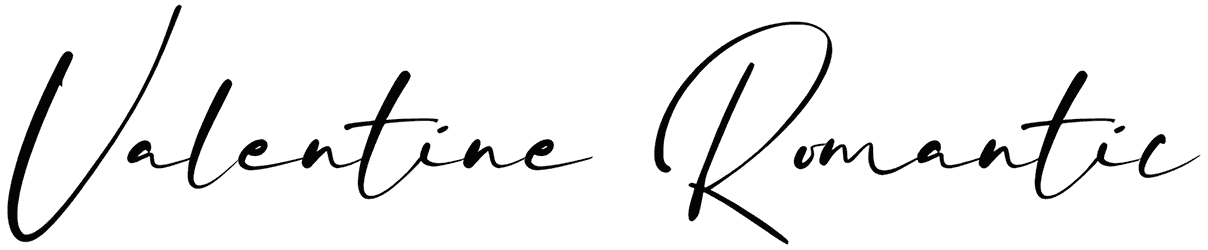
MADE Florence Script Font
One of the choices for writing fashion headlines, inspirational quotes, and invitation cards is using a calligraphy font. MADE Florence Script has elegant and feminine characters and all of its elements are designed with thin elements. It can convey a classy, aesthetic, and royal vibe to the reader and bring a handwritten illusion to your texts.
MADE Florence is a beautiful font duo.
The Florence will perfect for many project: design, fashion, magazines, logo, branding, photography, wedding invitations, quotes, blog header, poster, advertisements, etc.
Designed by: MadeType